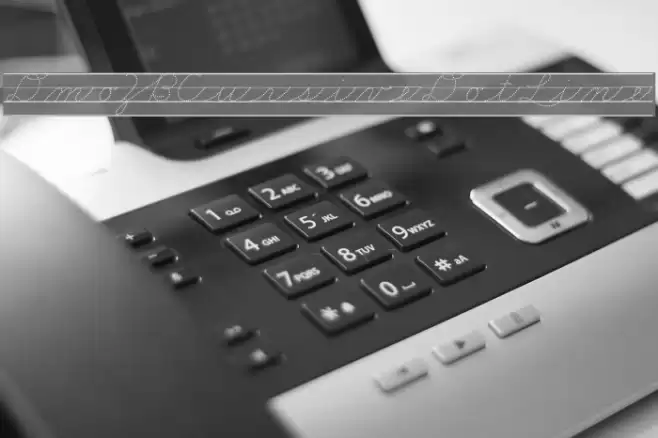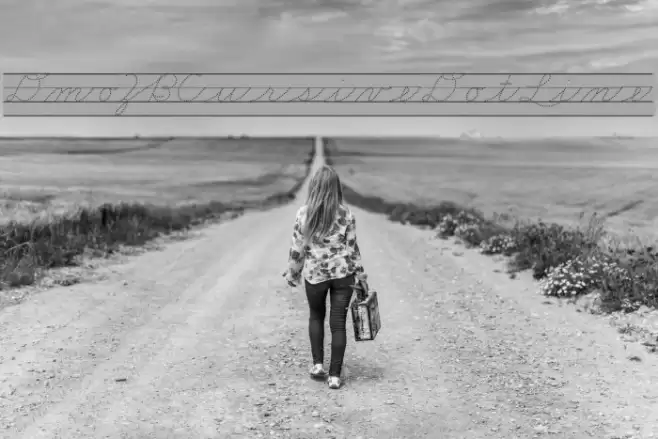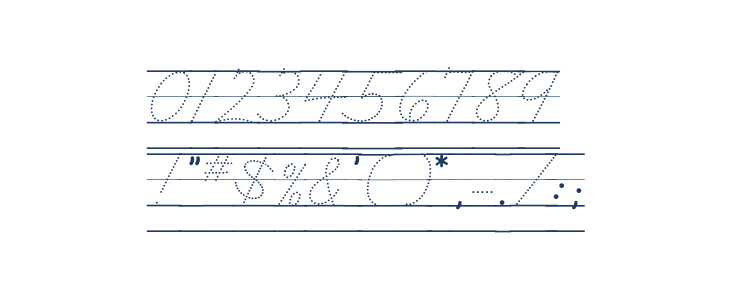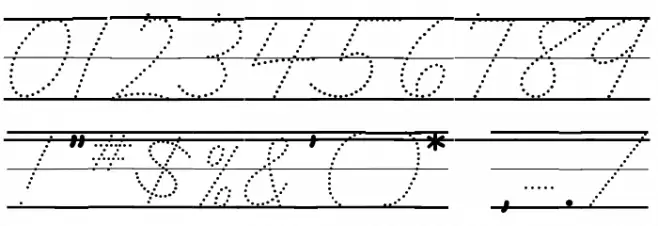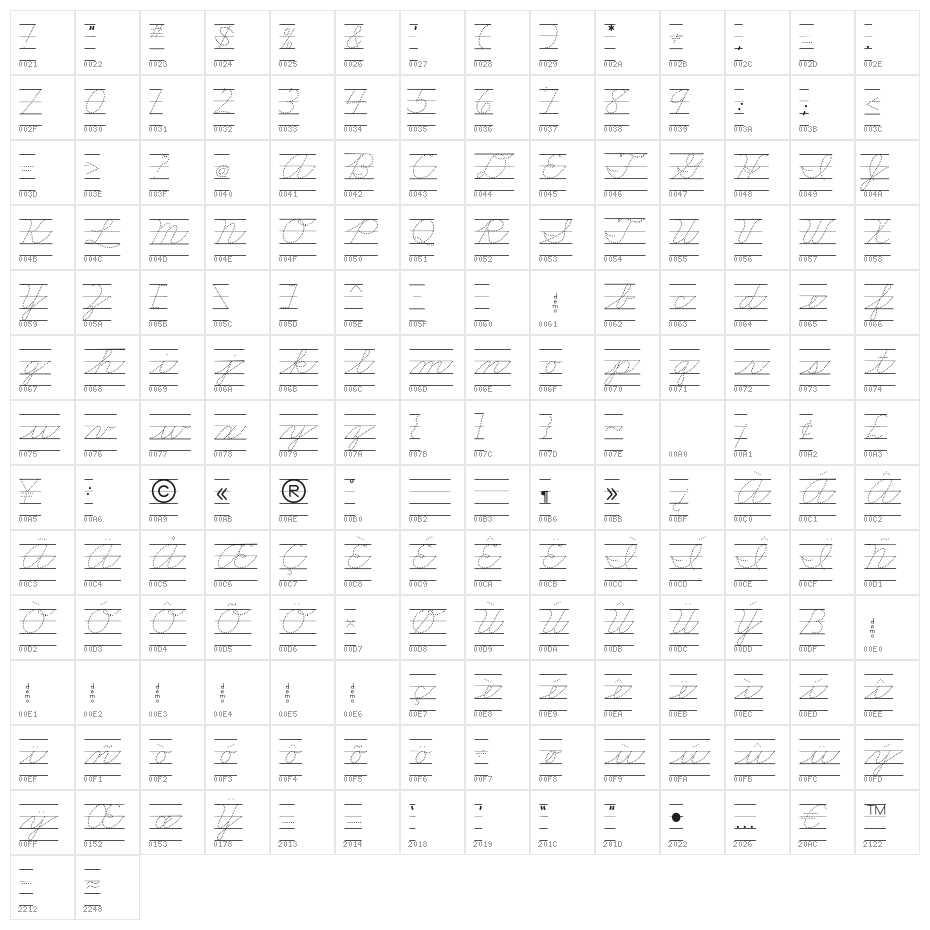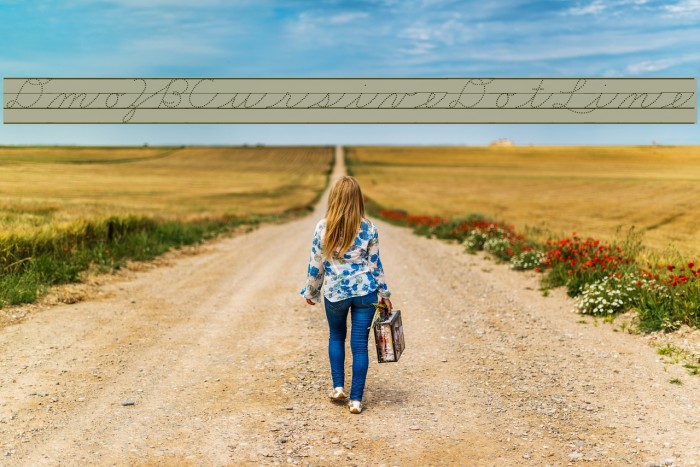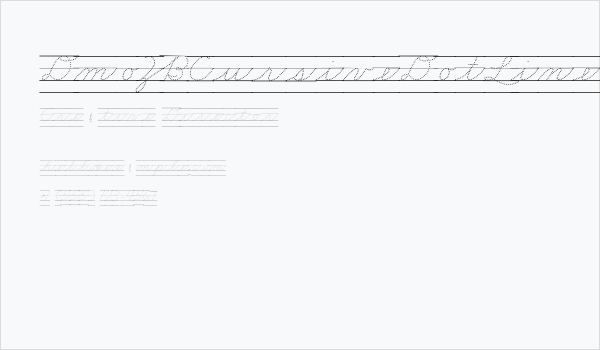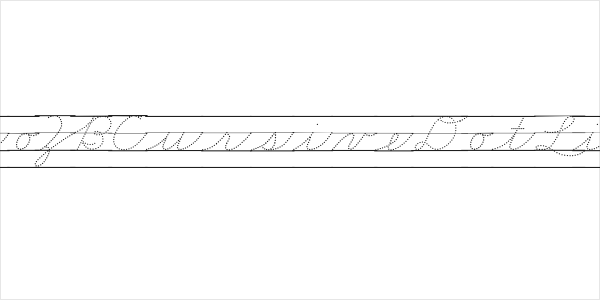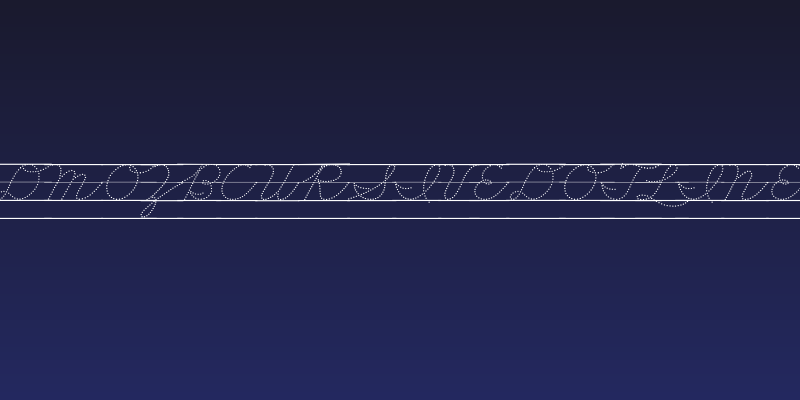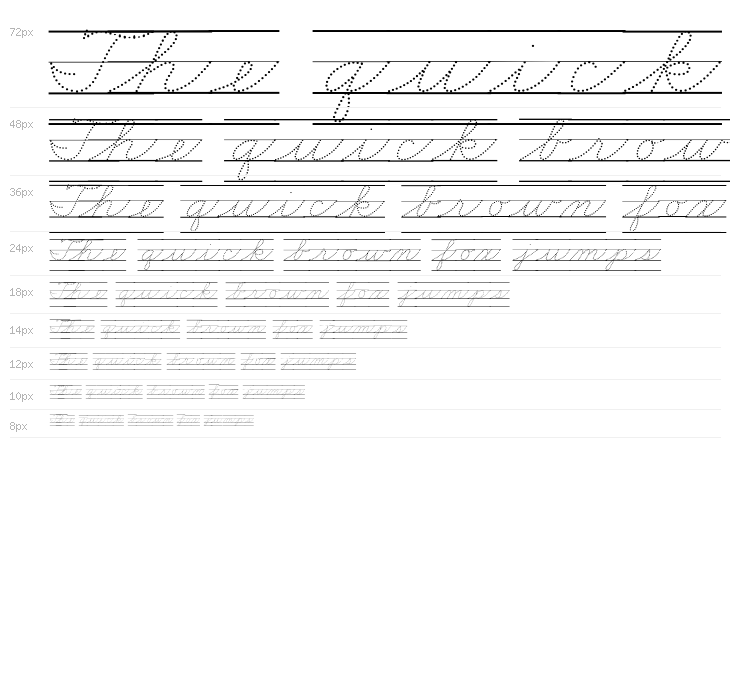
DmoZBCursiveDotLine Font
DmoZBCursiveDotLine Description
This font features a cursive style with dotted lines, designed to guide handwriting practice. Each character is formed with a series of dots, providing a clear path for learners to trace. The uppercase and lowercase letters are elegantly connected, emphasizing fluidity and continuity. The numbers and special characters maintain the same dotted style, ensuring consistency across all elements. This font is ideal for educational purposes, particularly in teaching cursive writing to beginners. Its structured yet flexible appearance makes it both functional and aesthetically pleasing.
A dotted cursive font designed for handwriting practice from Uncategorized fonts.
- Proposed Projects: Ideal for educational worksheets, handwriting practice sheets, and teaching materials.
- Overall Style: Educational
- Use Case: Handwriting practice, educational materials.